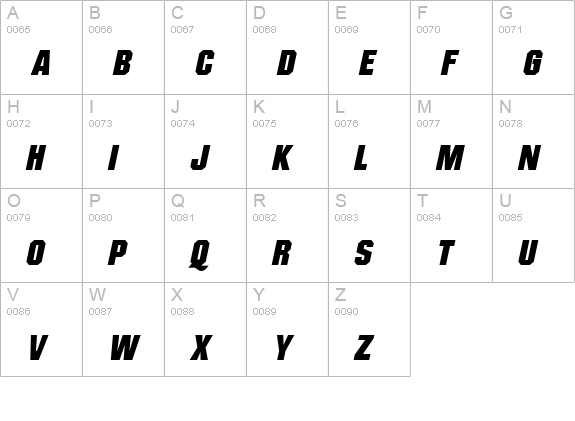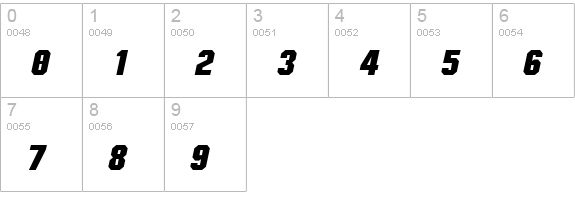
Mister Belvedere Oblique is a distinctive, italic variant in the Mister typeface family \xE2\x80\x94 well suited to design and typography projects.
Mister Belvedere Oblique font is a stylish and sophisticated typeface that exudes elegance and charm. With its unique slanted design and sleek lines, this font is perfect for adding a touch of class to any project. Whether you're working on a branding project, a website design, or a printed piece, Mister Belvedere Oblique is sure to make a statement. What's even better about this font is that it is completely free to download at FontsMarket.com. That's right - you can elevate your design game with this stunning typeface without having to spend a dime. So why wait? Head over to FontsMarket.com now and get your hands on Mister Belvedere Oblique font today!